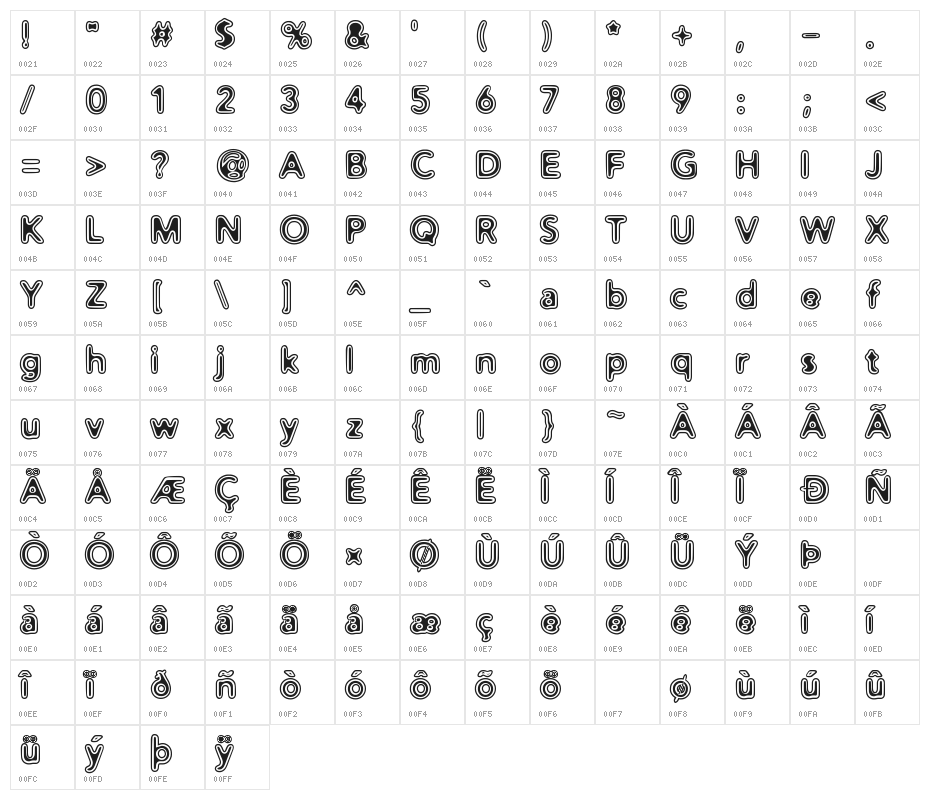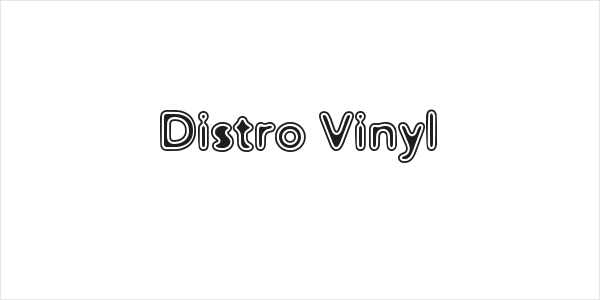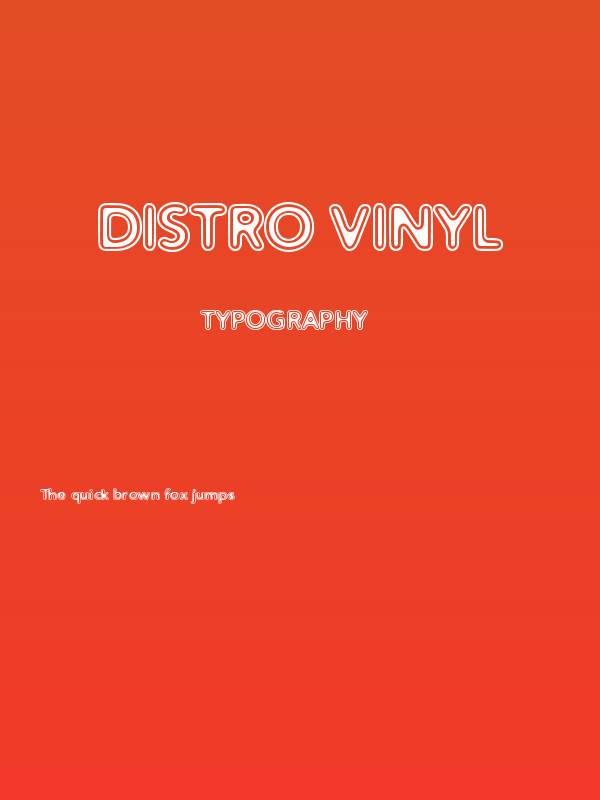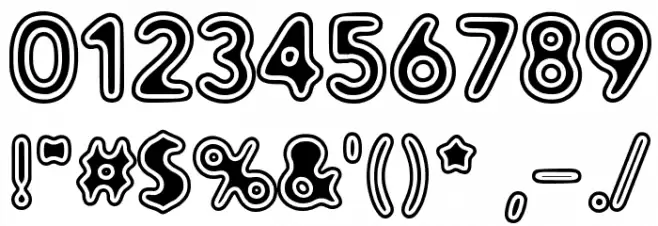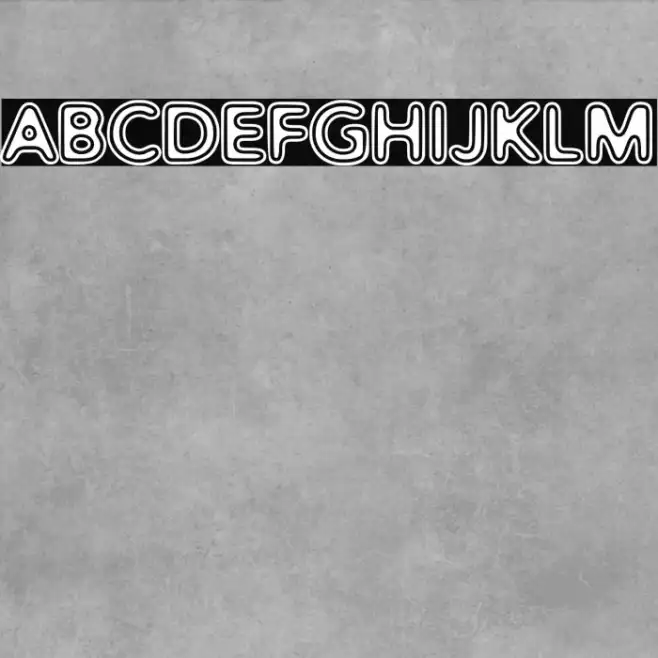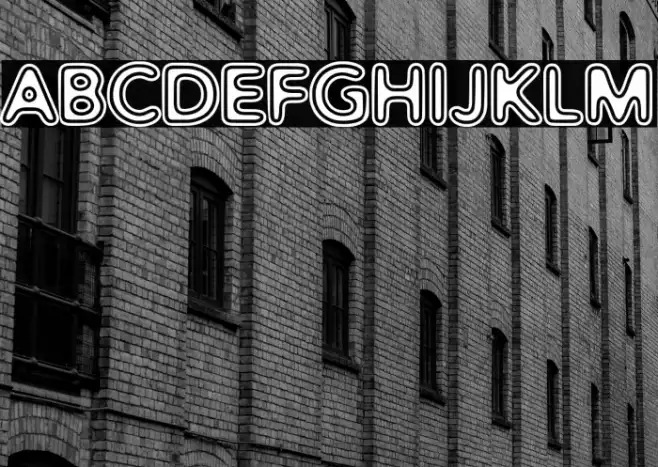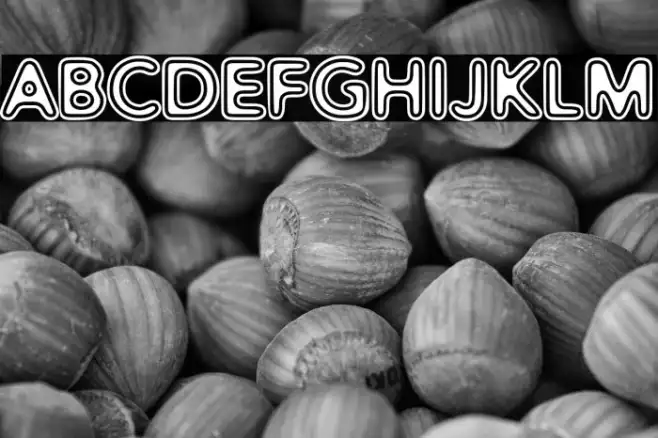
Distro Vinyl Font
Distro Vinyl Description
This font features a playful and bold outline style, characterized by thick, rounded edges and a double-layered effect that gives it a three-dimensional appearance. The letters are evenly spaced, maintaining a consistent flow throughout the alphabet. The uppercase and lowercase letters share a similar structure, enhancing readability while adding a touch of whimsy. Numbers and special characters are designed with the same bold outline, ensuring uniformity across all elements. This font's unique style makes it stand out, making it ideal for eye-catching designs.
| Overall Style | Playful, Modern |
| Proposed Projects | Ideal for posters, children's book covers, playful branding, and creative advertisements. |